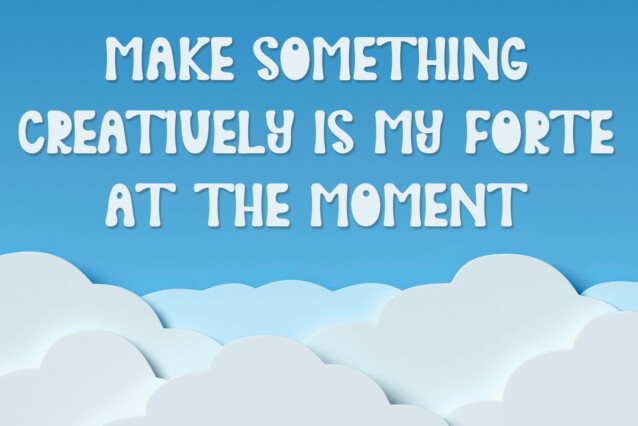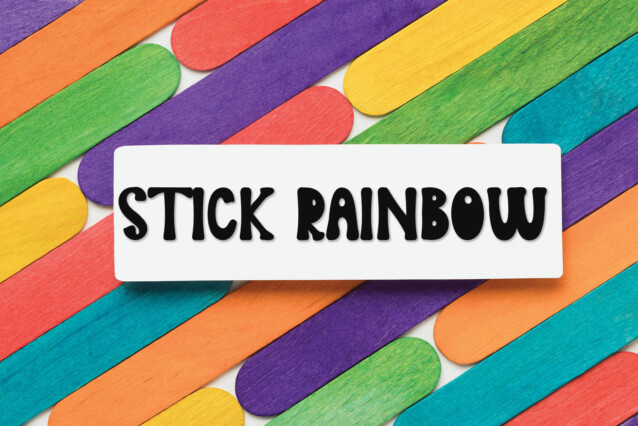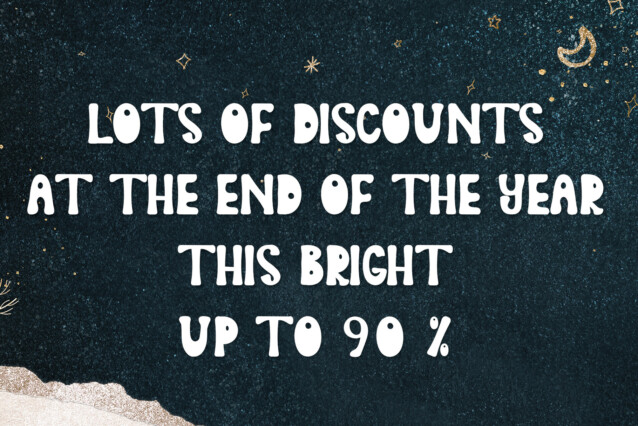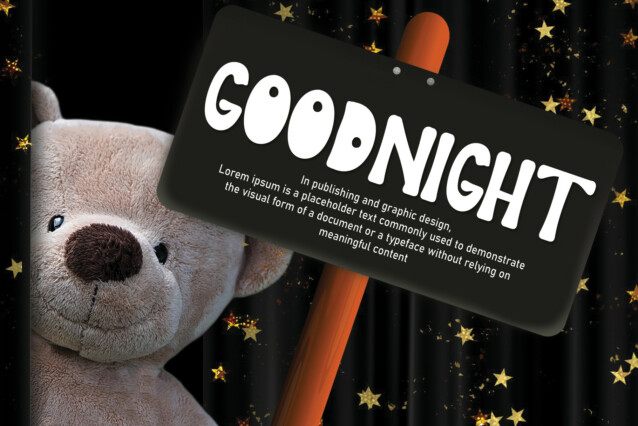
Flying Balloon Display Font
Flying Balloon Display Font is a fun and quirky display font with a groovy vibe. Add it confidently to your creative projects and enjoy the results!